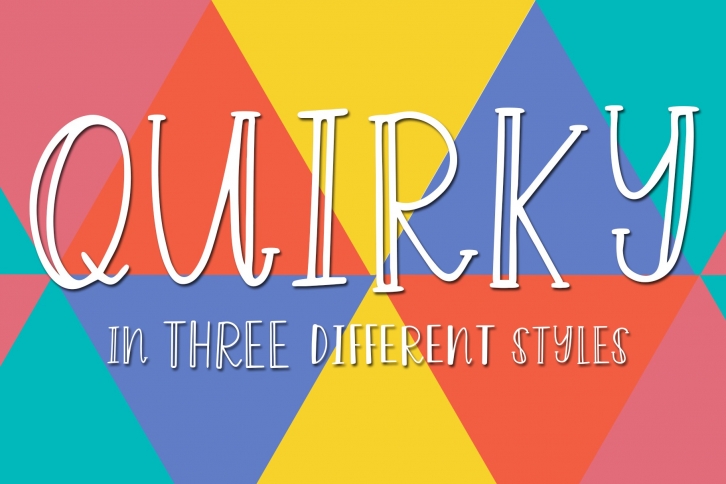
Quirky is a beautiful font that was designed by Dansie Design. It's a great choice for designers and creatives who need such a font. It was released on June 26, 2018 and the file size is 18.6 MB. Quirky may give a more youthful, expressive and casual look to your project. It is a very beautiful, refined, elegant, and high-quality font.